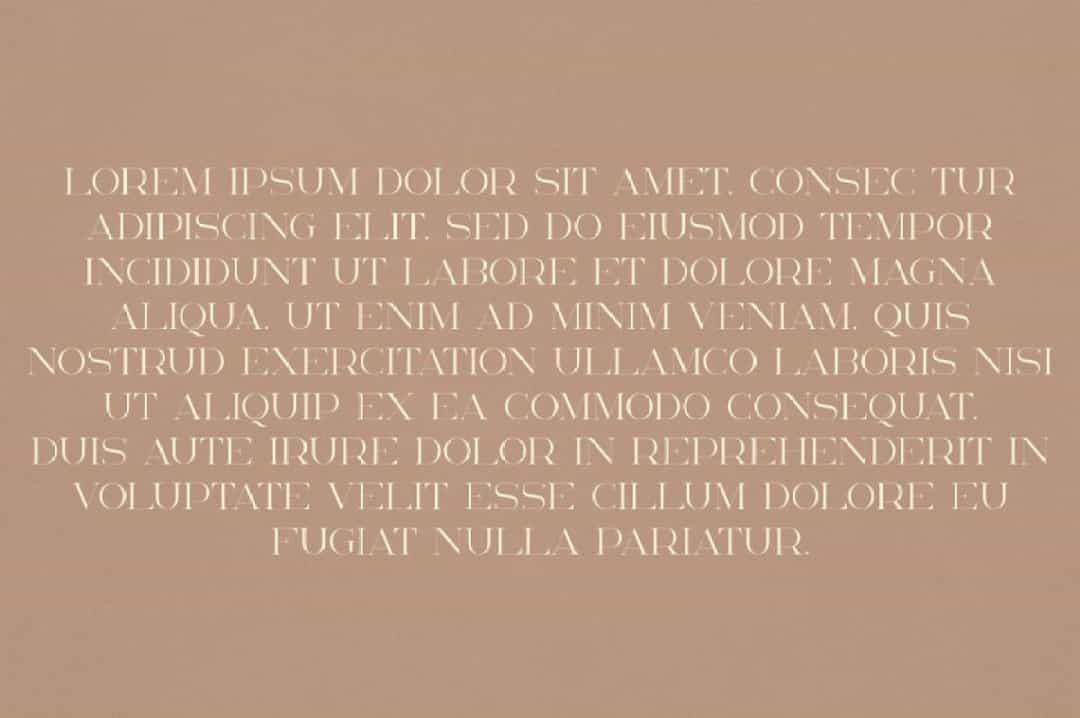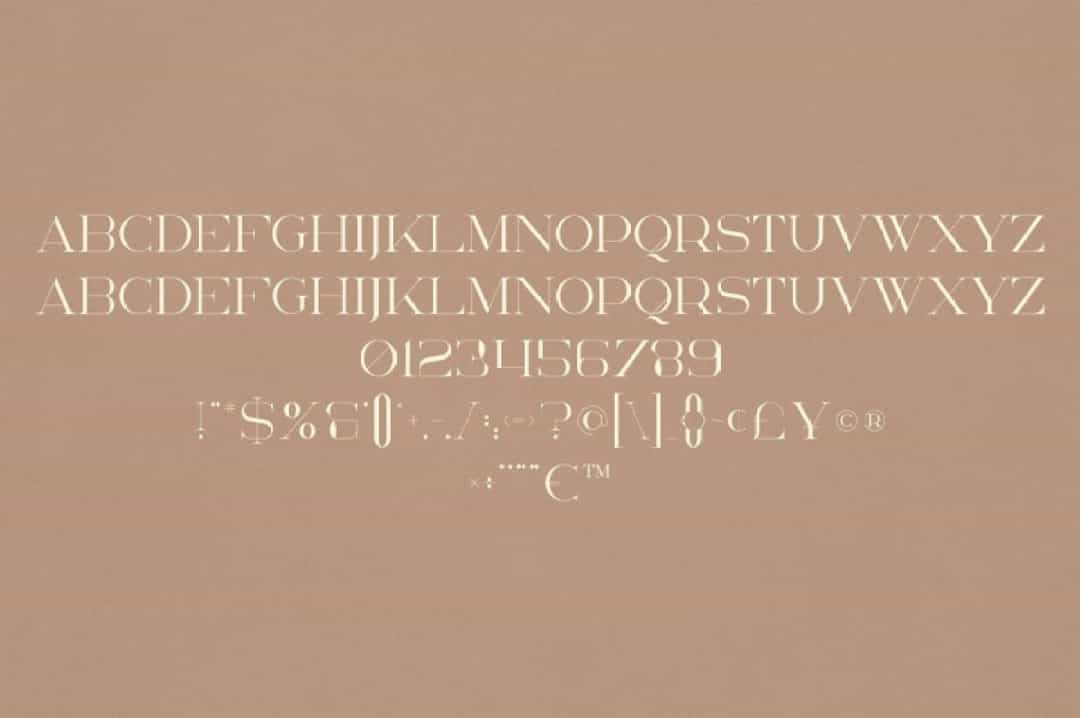
Mavis is an elegant serif typeface that gives your typography an entirely unique aesthetic! Perfect for headlines, logos, branding or simple text – Mavis makes any headline, logo or branding truly standout – make an impactful first impression!